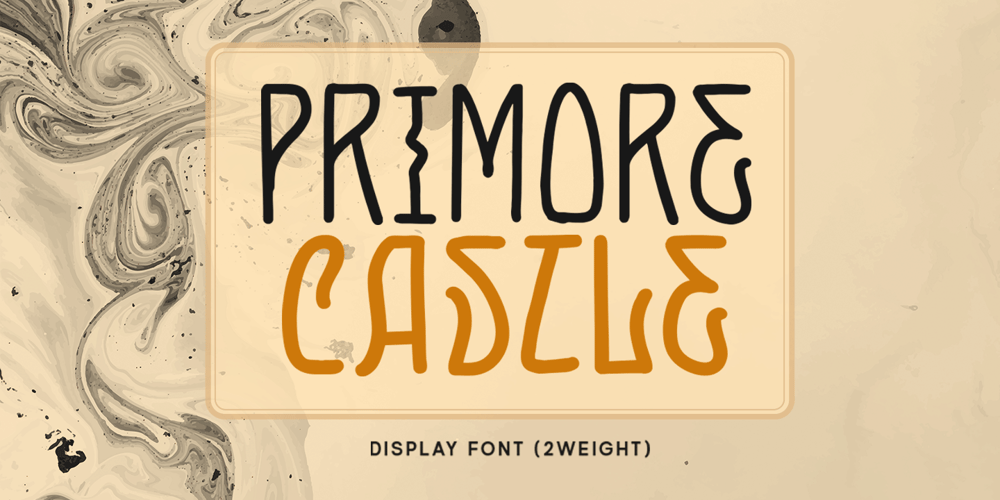
Primore Castle Font Family was designed by Hendry Juanda and published by Letterhend. Primore Castle contains 2 styles and family package options. Primore Castle is a unique sans serif typeface. Very suitable for logo, headline, tittle, and the other various formal forms such as invitations, labels, logos, magazines, books, greeting / wedding cards, packaging, fashion, make up, stationery, novels, labels or any type of advertising purpose.Features : numbers and punctuation multilingual alternates PUA encoded We highly recommend using a program that supports OpenType features and Glyphs panels like many of Adobe apps and Corel Draw, so you can see and access all Glyph variations.